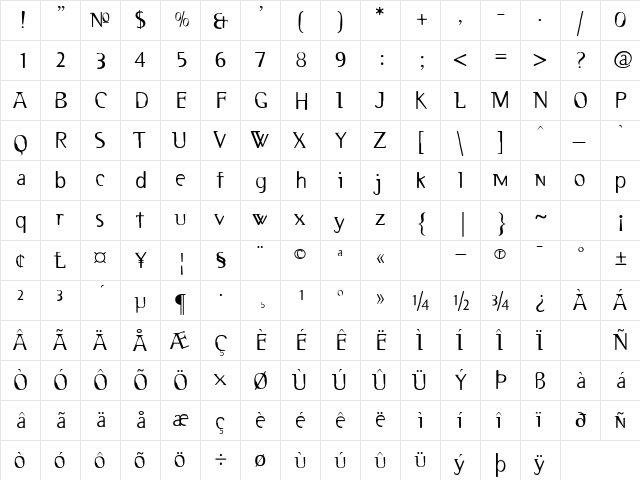
2RebelsDeux Regular
Design Context for 2RebelsDeux Typeface
2RebelsDeux offers clean, dependable letterforms without strong stylistic allegiance, making it a practical choice for designers who need flexibility.